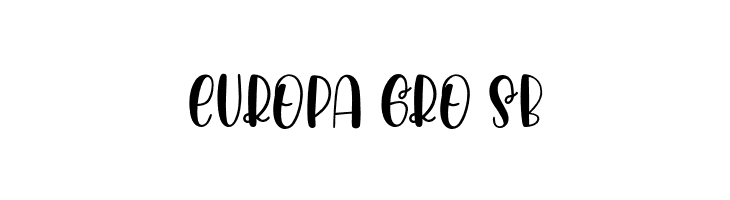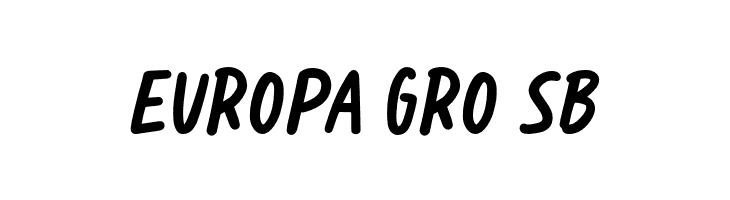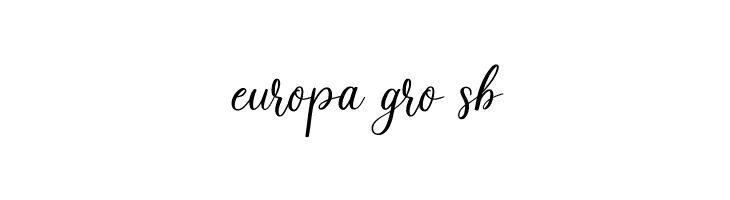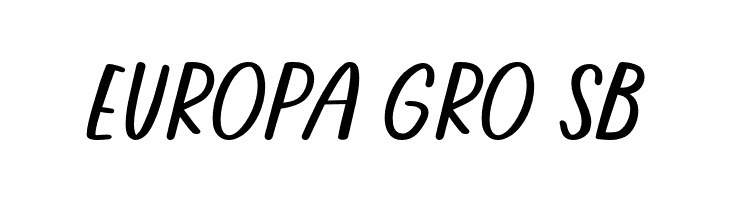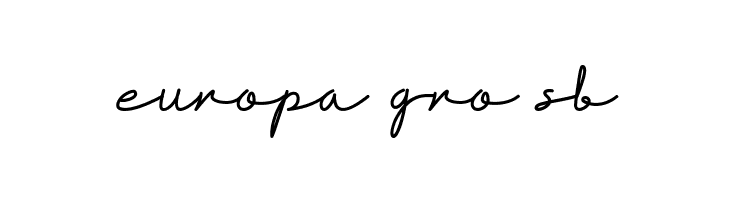
A playful, handwritten font with bold, whimsical characters.
A graceful and elegant script font with flowing cursive strokes.
A bold, handwritten font with smooth curves and a playful style.
A graceful and artistic script font with elegant loops and flourishes.
A graceful and ornate script font with flowing, cursive letterforms.
A casual, handwritten font with smooth, flowing curves and a lively slant.
An elegant and flowing script font with graceful curves and swashes.
A playful, informal handwritten font with irregular strokes.
A cursive, handwritten-style font with elegant, flowing strokes.
A flowing, elegant cursive font with smooth, connected letters.